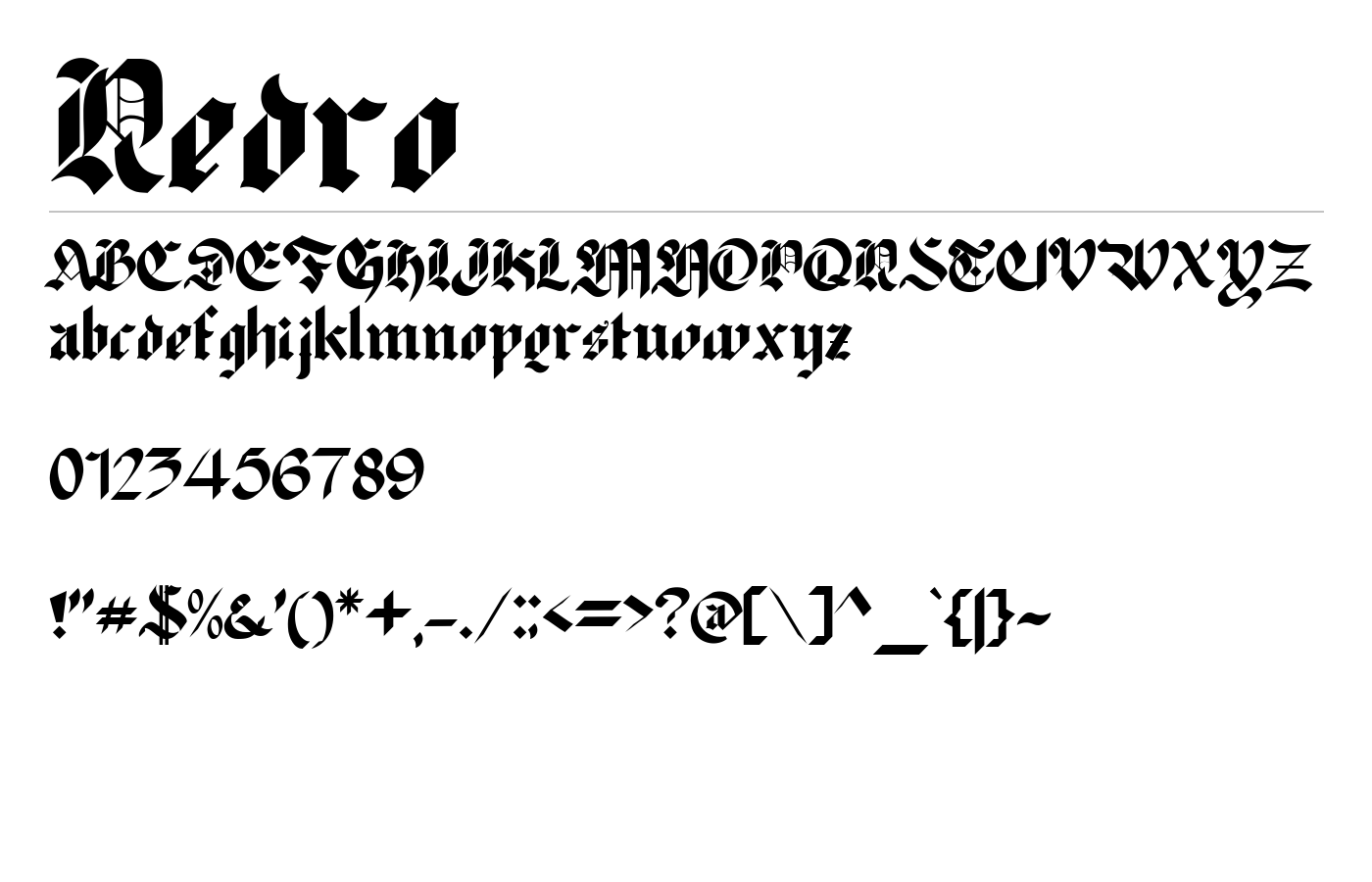
Redro is a bold blackletter font with strong, sharp strokes and a traditional gothic style that brings a historic and dramatic flair to any design. Its dense, high-contrast letterforms and intricate serifs make it ideal for projects seeking a vintage or medieval mood, such as logos, posters, and editorial headlines where a striking, authoritative presence is desired.
Redro Font
About Redro Font